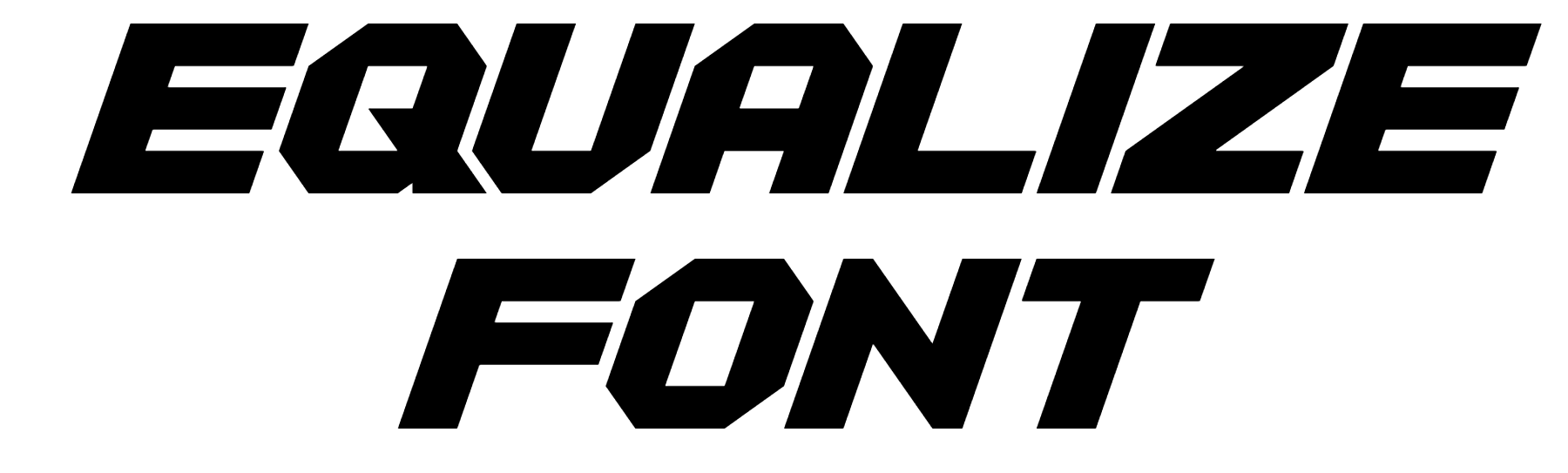
Equalize
Equalize is a techno font designed by NAL (2012). Its angular, engineered shapes look right at home on screens and tech products. You can download it for free and test it with your own words in the preview above.
- Designer: NAL
What You Can Type With Equalize
With complete upper and lowercase letters and all ten digits, Equalize is ready for real wording, not just a single headline. Everyday marks like &, !, ? and @ are there too. There are no accented letters like é or ñ, so it's best kept to English text.
Where Equalize Works Best
Equalize is a natural fit for gaming logos, tech branding and futuristic posters. The file has no kerning data, so in logos and big titles check pairs like AV, To and Wa and tighten the spacing by hand. Try it on a dark background with a bright accent color for a sharp, modern look.
Who designed Equalize font?
Does Equalize support accented letters?
No. Equalize has no accented letters such as é, ñ or ü, so it's best for English text.
What fonts pair well with Equalize?
A simple sans serif like Roboto keeps longer text easy to read next to it.